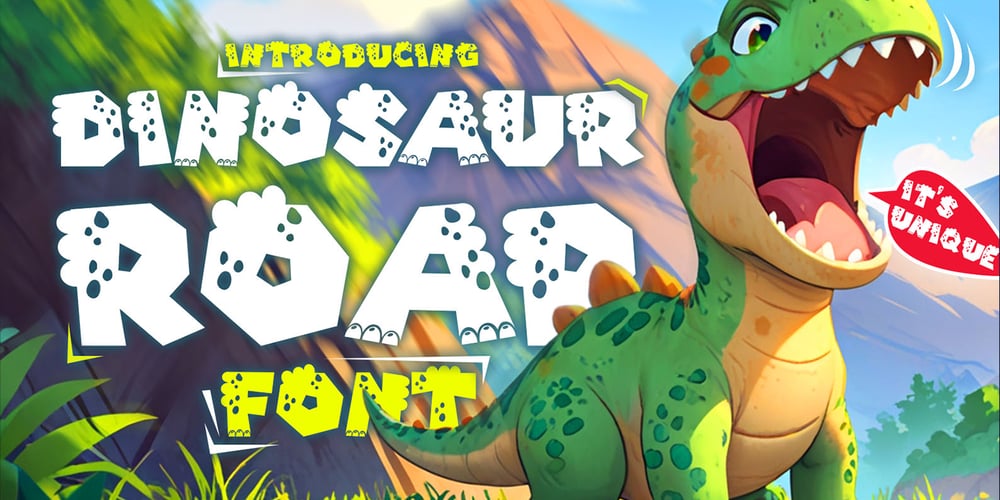
Dinosaur Roar
Dinosaur Roar font
Dinosaur Roar Font Family was designed by Mohammed Lamjidi and published by Beast Designer. Dinosaur Roar contains 1 styles and family package options. Dinosaur Roar Font is a bold, rugged typeface inspired by ancient fossils and rocky terrains.Perfect for kids projects, educational materials, and themed parties, it brings a playful, adventurous feel to posters, banners, logos, and headlines.Unleash the prehistoric power of your text!